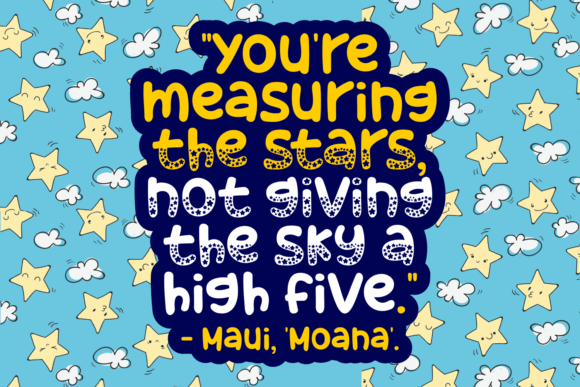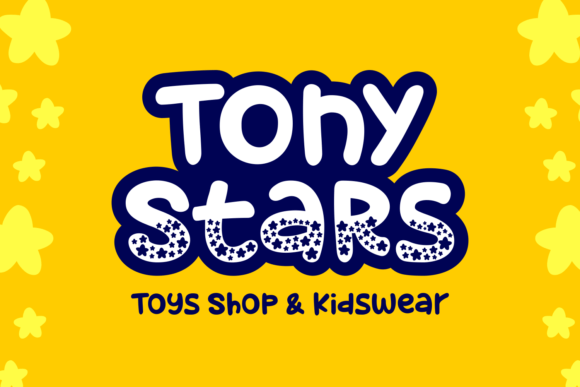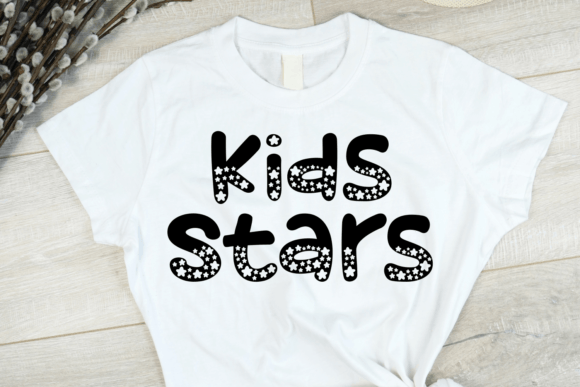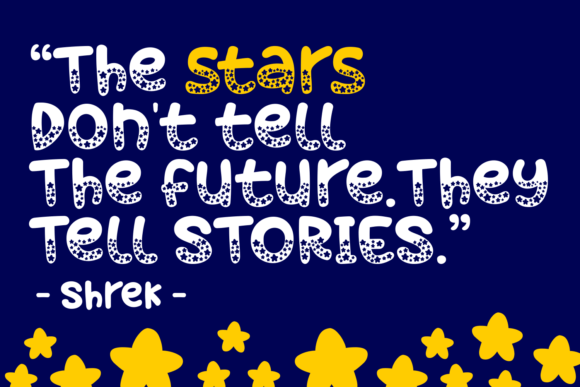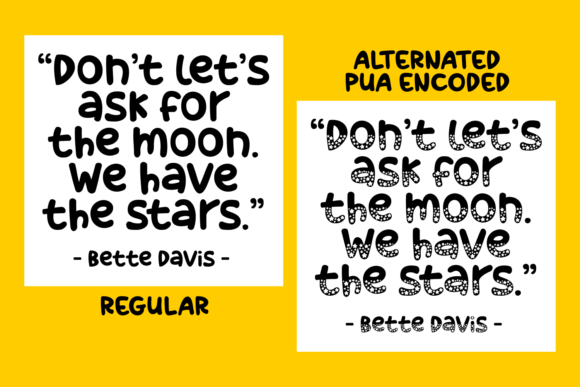
Introduction to Made with Stars Font
“Made With Stars” is a splendid display and decorative font made with stars and passion.
Its unique starry characters will fill your creations with so much beauty and uniqueness – you’ll love it This font is PUA encoded, which means you can access all of the glyphs and swashes with ease.
Made with Stars Font offers exceptional quality and versatility, making it a valuable addition to your design toolkit. Whether you’re creating for personal projects or commercial use, Made with Stars Font delivers professional results.